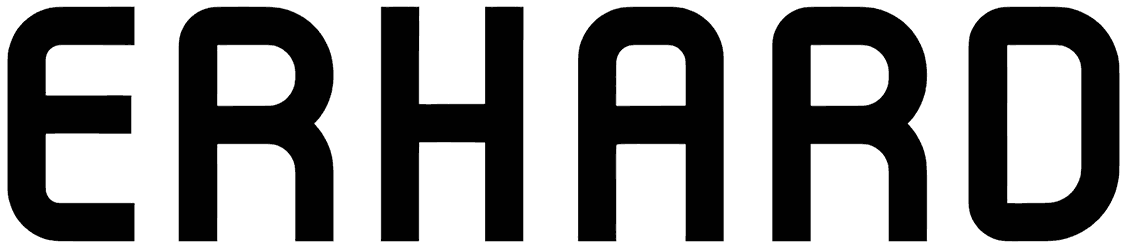
Erhard Font
Never underestimate the ability of an all-caps sans serif font that comes with a geometrical style and looks insanely perfect for any kind of modern graphic content. This logo font can be your first option in the middle…
Never underestimate the ability of an all-caps sans serif font that comes with a geometrical style and looks insanely perfect for any kind of modern graphic content. This logo font can be your first option in the middle of designing captivating artwork like applications, branding projects, stickers, digital banners, or street posters.